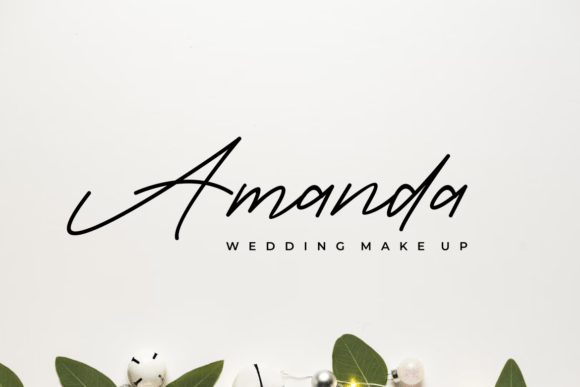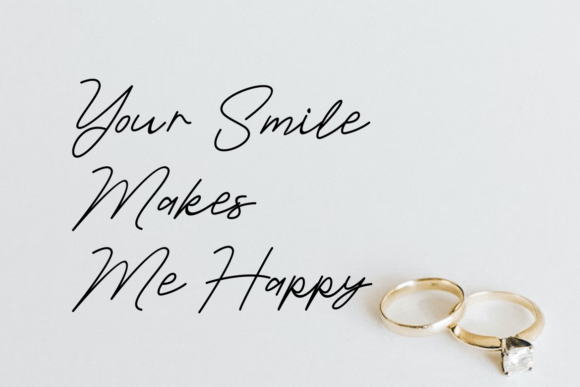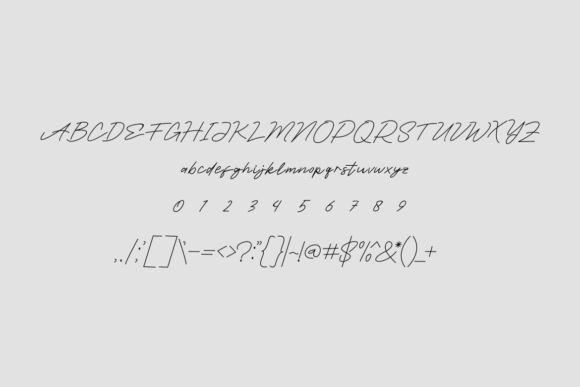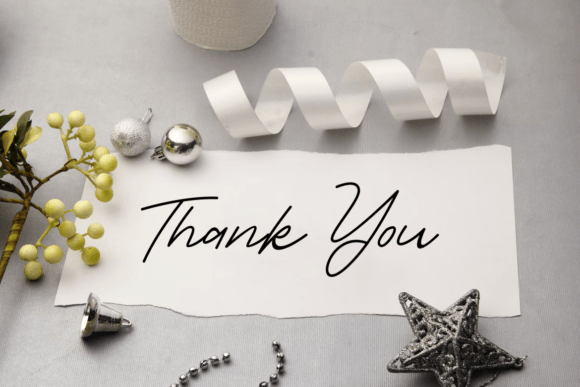
Smile at One Font – Free Download
Introduction to Smile at One Font
Smile at One is a playful and friendly handwritten font.
| 👤 Author | artchiles design |
Its letters look like they were handwritten, making it perfect for fun and casual designs The font adds a personal touch to your projects and makes them feel warm and inviting.
Key Features of Smile at One Font
Why Choose Smile at One Font?
Smile at One Font offers exceptional quality and versatility, making it a valuable addition to your design toolkit. Whether you’re creating for personal projects or commercial use, Smile at One Font delivers professional results.